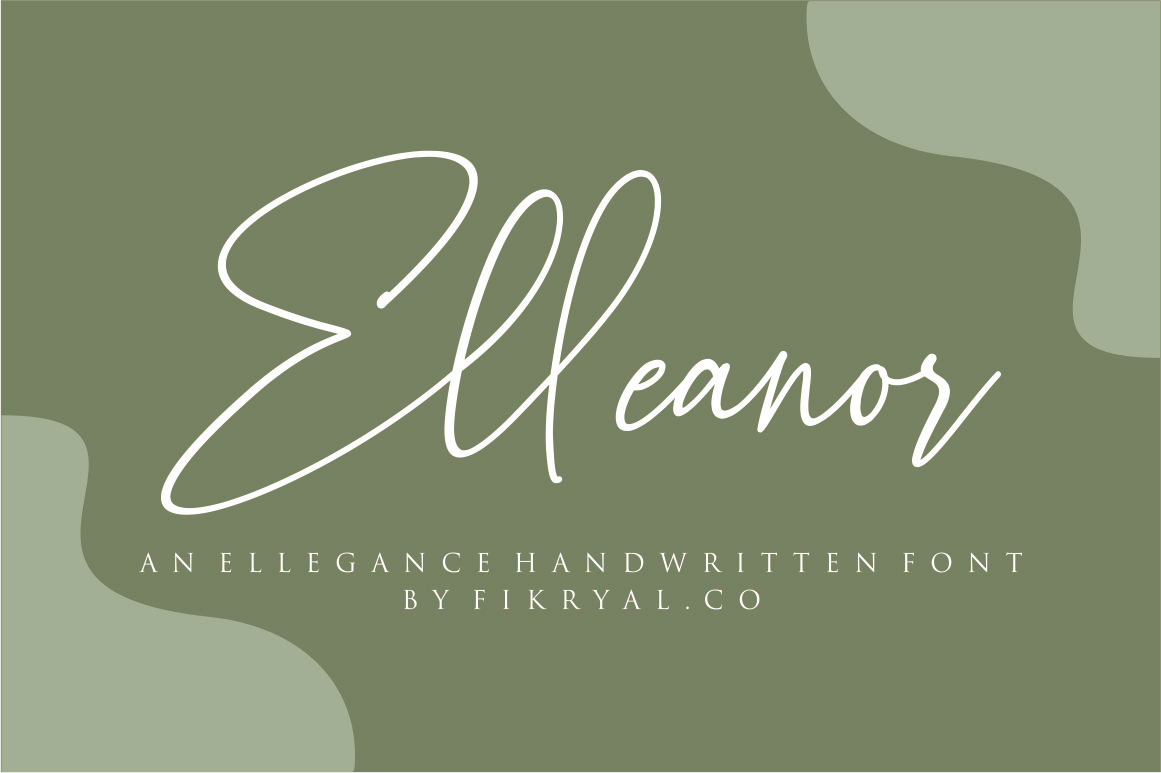
Elleanor - Handwritten Font
Introducing Elleanor - Handwritten Font
Elleanor is a natural handwritten font, this font Is perfect for logos, invitations, stationery, wedding designs, social media posts, advertisements, product packaging, product designs, label, photography, watermark, special events, or anything.
Elleanor comes with a full set of uppercase and lowercase letters, multilingual symbols, numerals, punctuation.